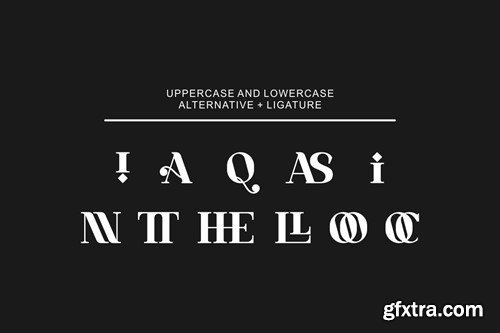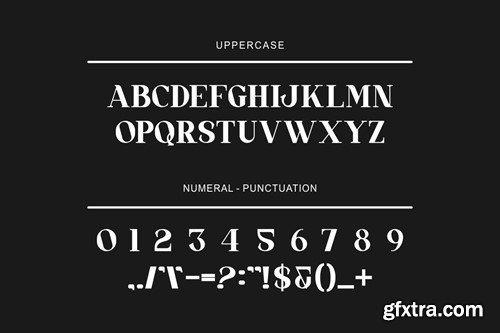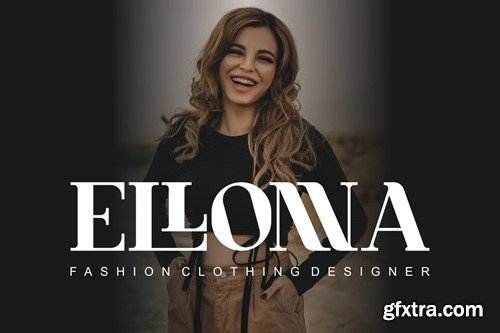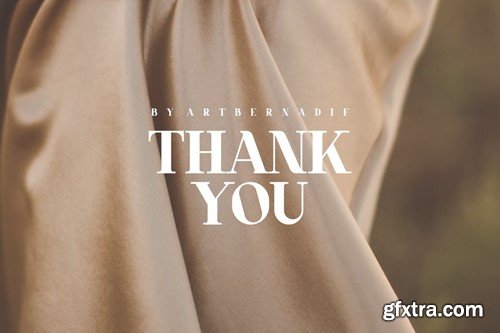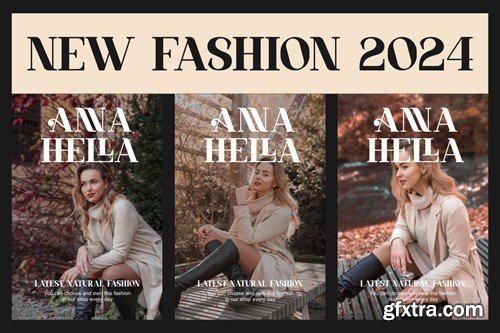
Fanndal - Elegant Serif And Luxury Font Typeface
Introducing our new product Fanndal Font Elegant Serif And Luxury Font Typeface
Fanndal Font Modern Font is a bold and authentic display font. The font is suitable for any branding project like logo, t-shirt printing, esport, and many more. outstanding in a wide range of contexts.
• Fanndal Uppercase
• Fanndal Alternative
• Fanndal Ligature